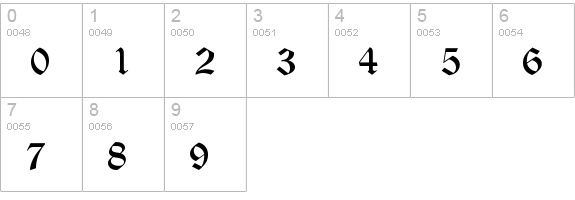
Phalyn Font Details
Phalyn font is a stunning typeface that combines elegance and modernity in perfect harmony. Its sleek and sophisticated design captures attention and adds a touch of class to any project. With its clean lines and balanced proportions, Phalyn font is versatile and suitable for a wide range of applications. This font boasts a wide variety of weights and styles, allowing for creative flexibility and endless design possibilities. Whether you're creating a logo, branding materials, web design, or any other typographic project, Phalyn font has you covered. One of the greatest advantages of Phalyn font is that it is available for free download at FontsMarket.com. This means that you can access this exquisite typeface without any cost, making it an excellent choice for designers on a budget. By providing Phalyn font free of charge, FontsMarket.com aims to empower and inspire creativity in design enthusiasts worldwide. Downloading Phalyn font is quick and hassle-free, ensuring that you can start incorporating its elegance into your projects right away. Its high-quality design and extensive character set make it suitable for both print and digital applications. Whether you're working on a professional or personal project, Phalyn font is sure to impress. With its timeless appeal and versatility, Phalyn font is a must-have for any designer's toolkit. Its ability to elevate any design with its grace and sophistication is truly remarkable. Take advantage of this incredible opportunity to access Phalyn font for free at FontsMarket.com and let your creativity soar.